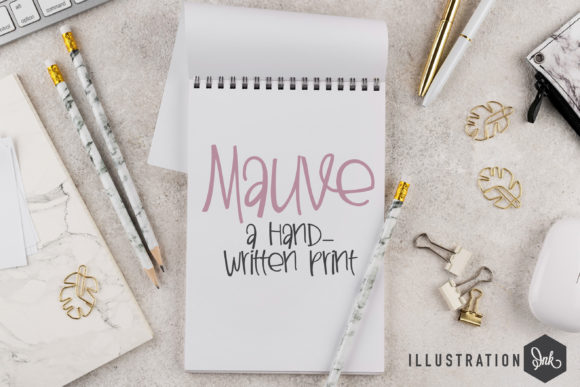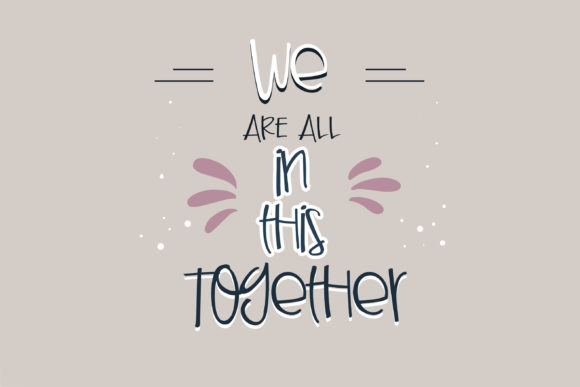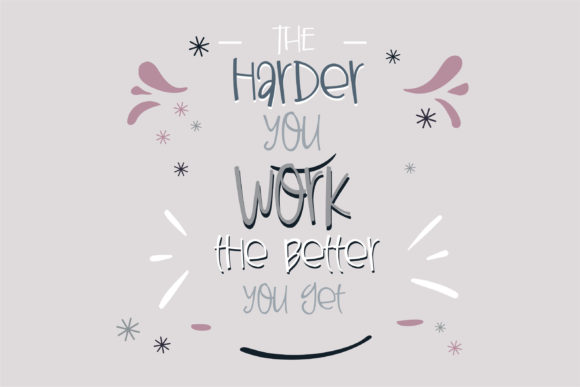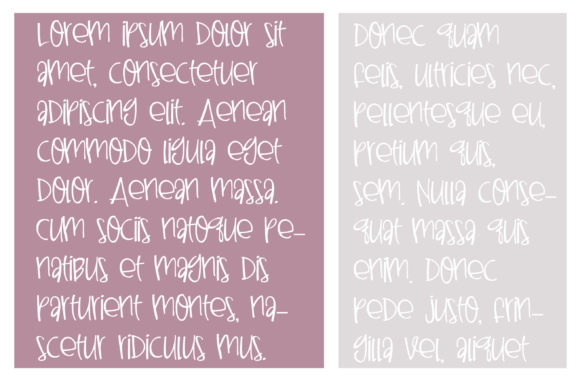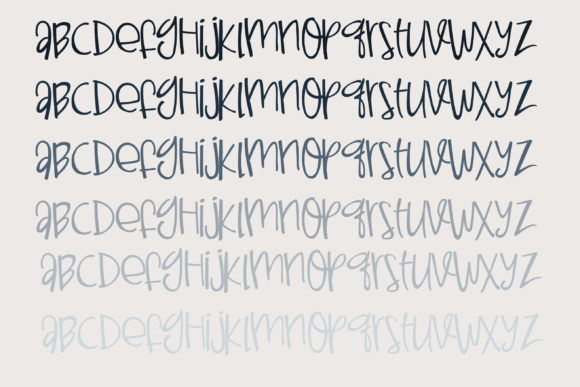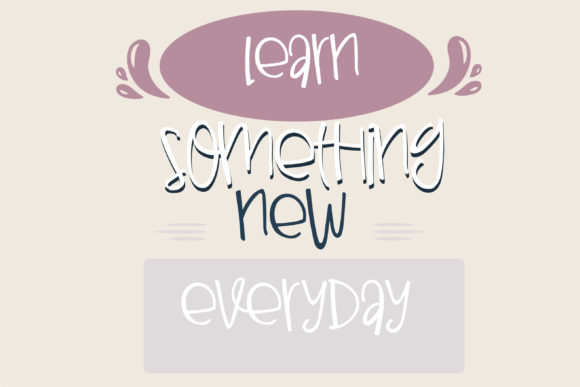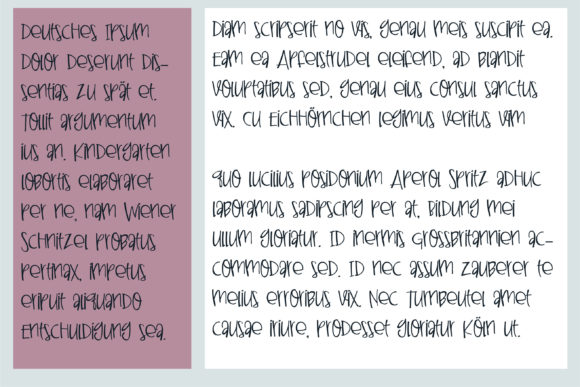
Mauve Font
About Mauve Font
Mauve, a free-flowing script font, has been meticulously designed to bring an air of elegance and ease to your creative endeavors. Tailored for a diverse range of applications such as packaging products, invitation cards, flyers, mockups, event posters, and more, Mauve exudes high-quality vibes while maintaining a beautiful and balanced character.
One of Mauve’s distinctive features lies in its free-flowing script style. This characteristic gives the font a sense of fluidity, making it an ideal choice for projects that require a touch of graceful spontaneity. Whether you’re working on a sophisticated invitation card or a stylish packaging design, Mauve’s flexibility ensures that it complements a wide variety of design concepts.
The beautiful and balanced character of Mauve adds to its versatility, making it suitable for a large design pool. Its aesthetic appeal allows it to seamlessly adapt to different contexts, ensuring that your message is conveyed with both style and substance. Whether your project demands a formal or more casual approach, Mauve can effortlessly accommodate diverse design requirements.
Mauve is particularly well-suited for creating a high-quality and visually appealing presentation for your products or events. The script font imparts a sense of craftsmanship, adding an authentic and personalized touch to your designs. This makes Mauve an excellent choice for packaging, where capturing the attention and interest of the audience is crucial.
Furthermore, Mauve’s compatibility with various design elements, including mockups and event posters, underscores its adaptability in different creative scenarios. It seamlessly integrates into your overall design vision, contributing to the cohesiveness and overall visual impact of your projects.
In conclusion, Mauve isn’t just a script font; it’s a versatile and stylish tool for enhancing the visual appeal of your designs. Its free-flowing nature, beautiful character, and high-quality vibes make it an asset for anyone looking to infuse charm and sophistication into their packaging, invitations, flyers, or any project that requires a distinctive and appealing personality. Explore the creative possibilities that Mauve brings, and let your designs shine with a touch of elegance and flair.